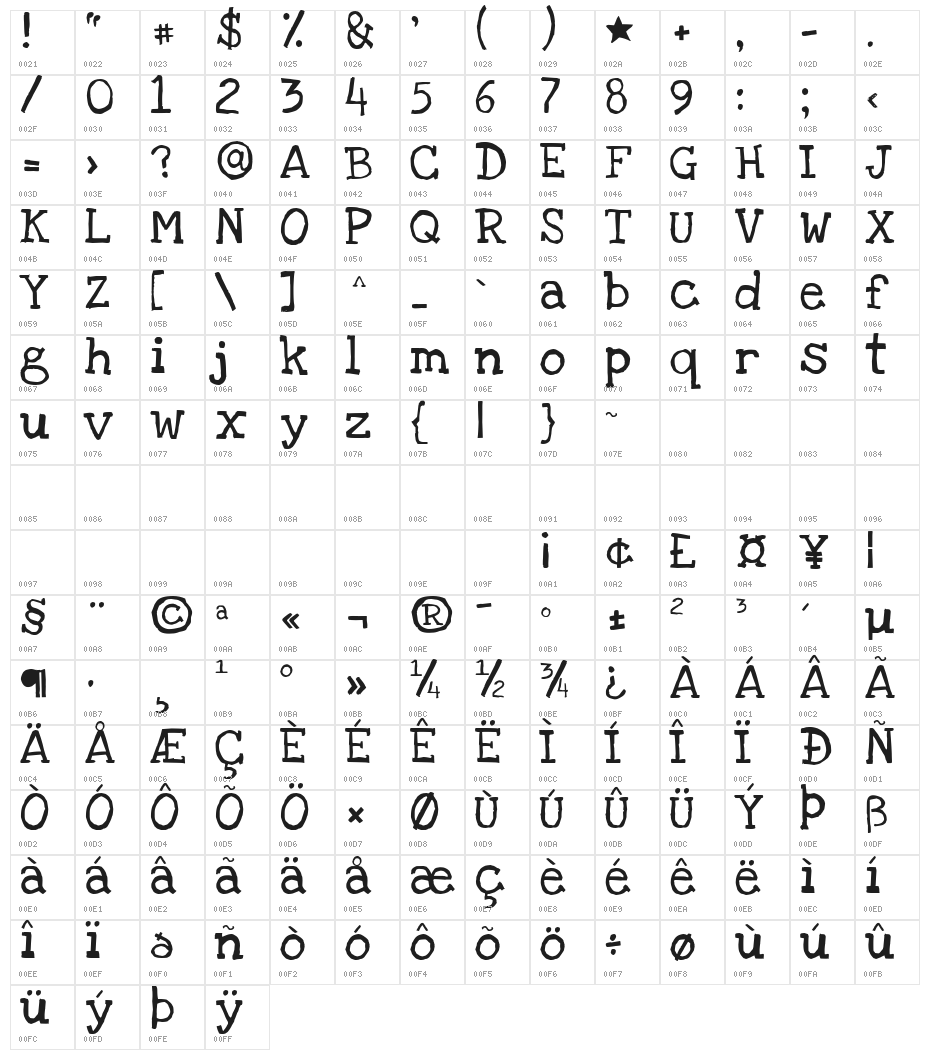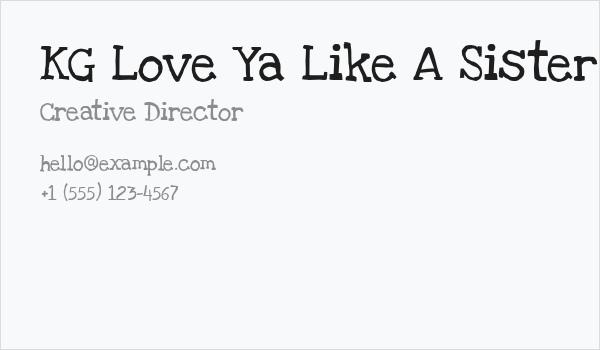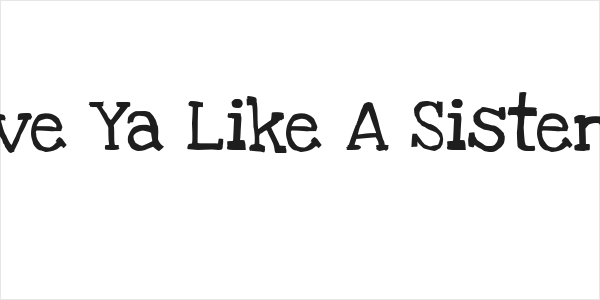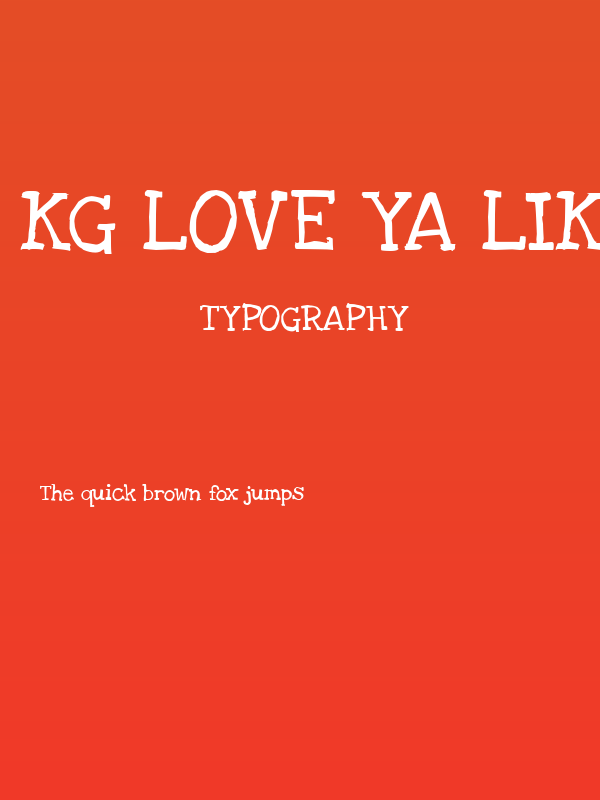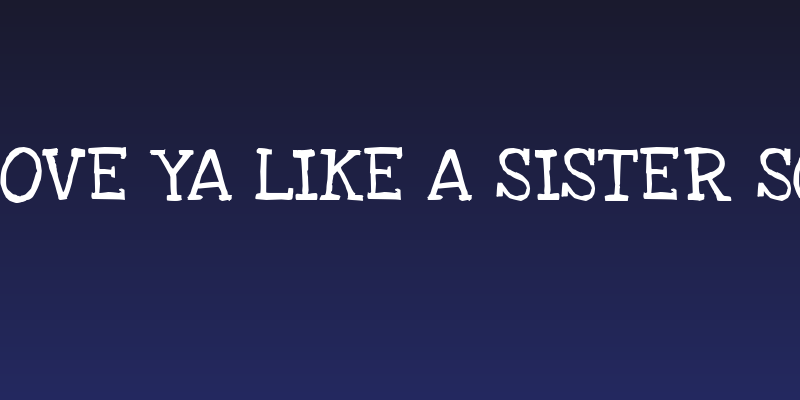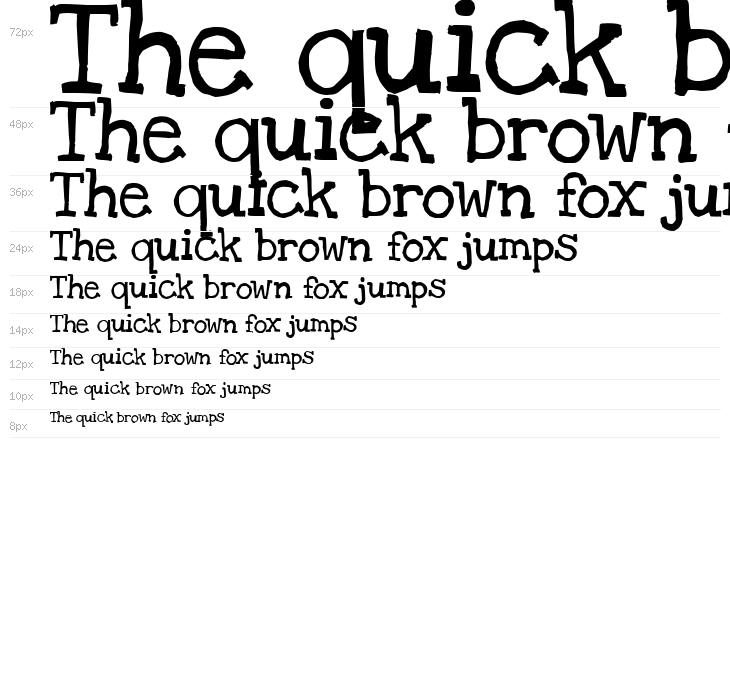
KG Love Ya Like A Sister Solid Font
KG Love Ya Like A Sister Solid Description
This font features a playful and whimsical style with a hand-drawn appearance. The letters are slightly irregular, giving it a casual and friendly feel. The uppercase and lowercase characters maintain a consistent style, with rounded edges and a slightly uneven baseline, adding to its charm. The numerals and special characters follow the same playful design, making it suitable for creative and informal projects. The overall look is approachable and fun, perfect for adding a personal touch to any design.
| Proposed Projects | Ideal for children's books, greeting cards, playful branding, and casual invitations. |